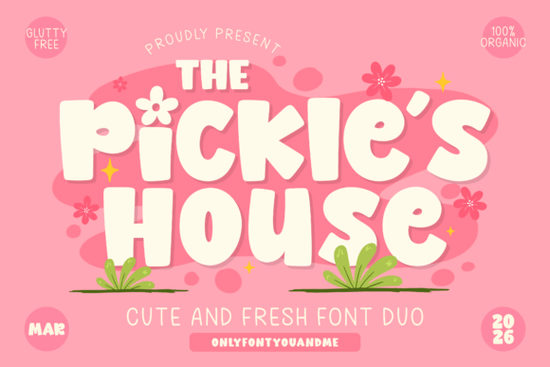
If you're looking for a font that brings warmth, whimsy, and a touch of handmade charm to your designs, The Pickles House Font is worth a closer look. This cheerful font duo pairs a bold, bubbly display typeface with a light, playful handwritten companion making it especially well-suited for food branding, kids’ products, organic packaging, or any project where friendliness and personality matter.
What makes The Pickles House stand out is how naturally the two styles work together. The main font features soft, rounded letterforms with just enough irregularity to feel hand-crafted, not mechanical. Meanwhile, the secondary script adds an airy, relaxed rhythm that keeps things from feeling too heavy. The result? A cohesive look that feels both intentional and effortlessly cute like something you’d see on a farmers market label or a cozy café menu.
When should you use this font duo?
This pairing shines in contexts where approachability matters. Think:
- Food & beverage branding – especially for artisanal, organic, or kid-friendly products
- Children’s books, toys, or apparel – the bubbly shapes read as playful without being childish
- Social media graphics – quotes, announcements, or seasonal posts that benefit from a warm tone
- Handmade shop labels or packaging – soap bars, jam jars, or bakery boxes that want to feel personal
Because the fonts are designed as a set, switching between them creates visual interest without clashing. You don’t need to hunt for a complementary script the perfect match is already included.
How does it compare to other playful display fonts?
If you’ve browsed Creative Fabrica’s display font collection, you might recognize similar vibes in fonts like Super Bubble or Glossy Bubble, which lean into exaggerated roundness and high-energy fun. But The Pickles House trades some of that exuberance for softness and balance it’s less “cartoon” and more “hand-stitched apron.”
For projects needing a gentler touch, it also contrasts nicely with bolder duos like Selina & Daniel, which mixes sharp serifs with fluid script. And if you prefer nostalgic handwriting over bubbly forms, Remember Things offers a more vintage-inspired alternative. Even Awesome Everybody shares a similar upbeat spirit but with tighter spacing and more uniform strokes.
The Pickles House sits comfortably in the middle: expressive but not overwhelming, structured but not rigid.
Tips for using it effectively
To get the most out of this duo, keep these practical pointers in mind:
- Use the bold font for headlines or short phrases its chunky shapes lose clarity at small sizes or in long blocks.
- Let the handwritten style breathe give it generous line spacing and avoid cramming it into tight layouts.
- Pair with simple sans-serifs if you need body text (like Montserrat or Quicksand) to keep focus on the display fonts.
- Stick to warm, earthy, or pastel color palettes muted greens, creamy yellows, or soft terracottas enhance its garden-kitchen aesthetic.
Also, remember that while the fonts are versatile, they’re not neutral. They carry a distinct mood wholesome, joyful, slightly rustic so they won’t suit minimalist tech brands or formal invitations. But for the right project? They add instant character.
Who is this font best for?
Print-on-demand sellers creating mugs, tote bags, or nursery wall art will find The Pickles House easy to work with and commercially friendly. Small food businesses think homemade granola, herbal teas, or cookie kits can use it to convey care and authenticity. Crafters making printable planners, greeting cards, or party decor will appreciate how the duo creates hierarchy without extra effort. And hobbyists experimenting with Canva or Procreate can achieve polished results quickly, thanks to the built-in harmony between the two styles.
Ready to try it? If your next design needs a dose of gentle cheer without tipping into gimmick territory The Pickles House Font offers a balanced, ready-to-use solution that feels both fresh and familiar.